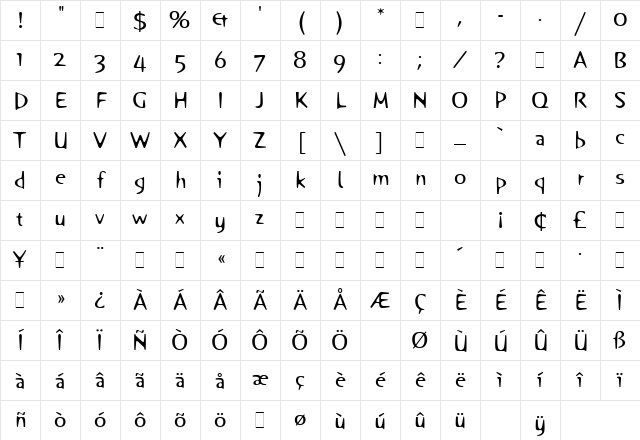
Complete Orange LET Plain glyph index. Displaying only characters natively supported by Orange LET Plain font.
Orange LET is a composed and adaptable typeface that performs quietly and consistently across a wide range of design contexts.